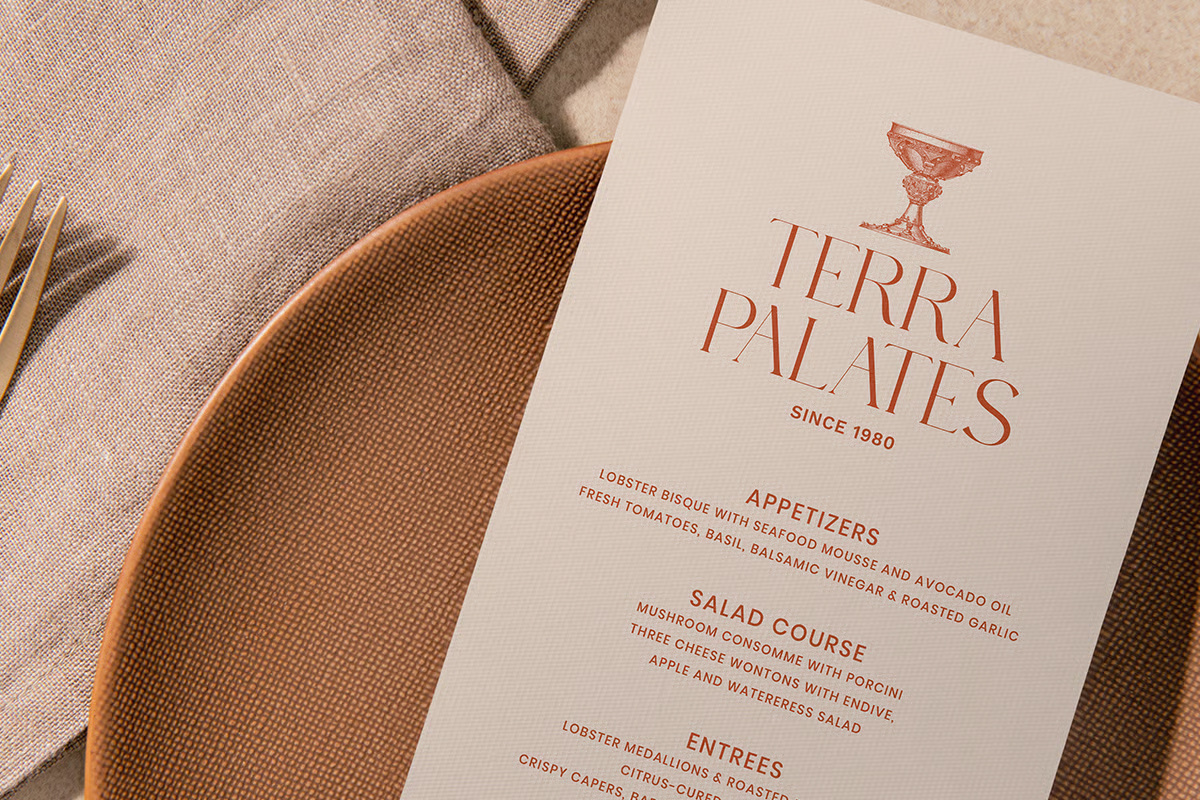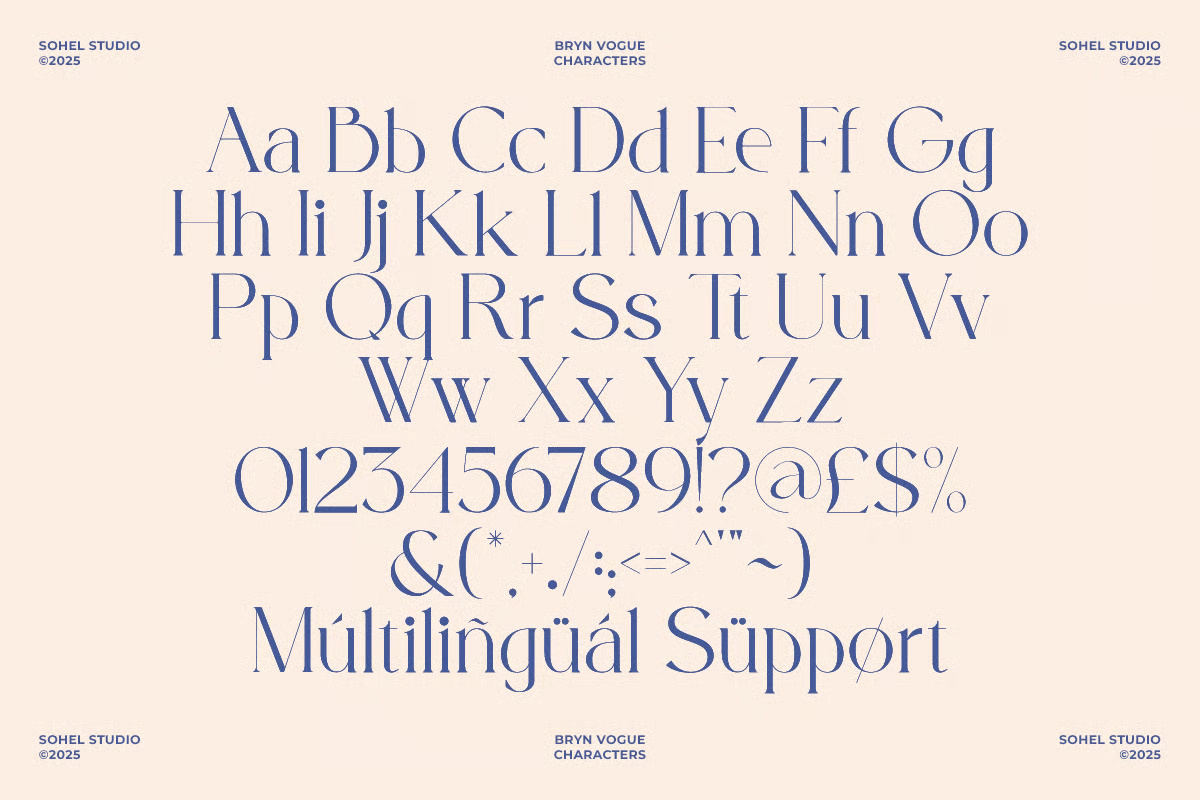
Bryn Vogue Modern Fashion Branding Serif Font
Bryn Vogue is a modern serif typeface that radiates high-fashion sophistication and a sharp editorial presence. Designed to embody elegance and refined taste, this font brings a sense of luxury and timeless appeal to every composition. Merging the classic charm of traditional serifs with contemporary nuances, it strikes the perfect balance between the past and the present.
Its sculpted letterforms feature high-contrast strokes and tasteful flares that draw attention without overpowering. Elongated stems and graceful curves create a poised, polished silhouette—ideal for upscale aesthetics and modern visual storytelling.
Tailored for the fashion and lifestyle industries, Bryn Vogue shines in luxury branding, beauty packaging, editorial layouts, fashion magazines, high-end social media content, lookbooks, and boutique identities. Its effortlessly chic vibe elevates every project with a touch of modern elegance.
Bryn Vogue Modern Fashion Branding Serif Display Font